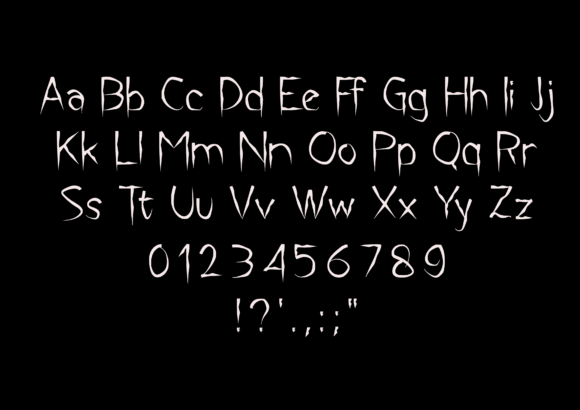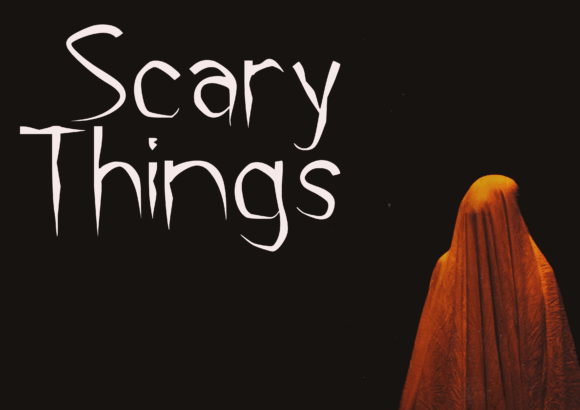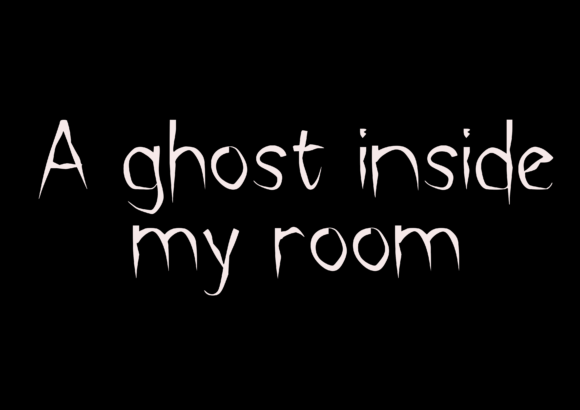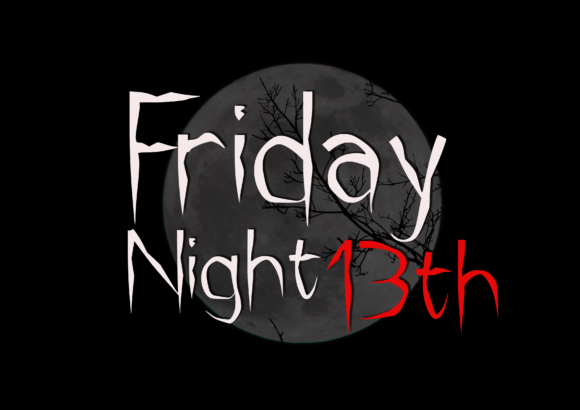
Unleash the Spook: Exploring the Alone in Halloween Font
As the spookiest time of the year approaches, designers and crafters are on the lookout for the perfect typography to capture the essence of Halloween. If you’re searching for a font that embodies the horror, spookiness, and evil vibes of the season, look no further than the Alone in Halloween Font. In this article, we’ll dive into the details of this chilling font and explore its inspiration, design, and uses.
The Inspiration Behind Alone in Halloween Font
The Alone in Halloween Font is a masterful blend of horror, spookiness, and evil style, drawing inspiration from the darkest corners of horror movies, comics, and black metal music. The font’s creator aimed to craft a typography that would evoke the same eerie feelings as a creepy abandoned asylum or a haunted forest on Halloween night. By combining these influences, the Alone in Halloween Font was born – a font that’s sure to send shivers down the spines of your audience.
Design and Visual Appearance
The Alone in Halloween Font boasts a unique, distressed design that exudes a sense of horror and foreboding. Its rugged, uneven lines and jagged edges create a sense of unease, perfect for capturing the essence of Halloween. The font’s black metal-inspired aesthetic adds an extra layer of edginess, making it ideal for designers and crafters looking to create bold, eye-catching projects. Whether you’re designing a spooky poster, a haunting book cover, or a chilling Halloween card, the Alone in Halloween Font is sure to make a lasting impression.
Uses for Alone in Halloween Font
The versatility of the Alone in Halloween Font makes it an excellent choice for a wide range of projects. Here are some ideas to get you started:
• Halloween Day Celebrations: Use the Alone in Halloween Font to create spooky decorations, invitations, or party flyers that will set the tone for a howling good time.
• Branding and Design Projects: Add a touch of horror and edginess to your brand’s identity or design projects, such as logos, brochures, or business cards.
• Music and Posters: Create eye-catching posters or album covers for your favorite bands or music artists, especially those in the horror or metal genres.
• Book Covers: Use the Alone in Halloween Font to create haunting book covers for horror, thriller, or mystery novels that will grab readers’ attention.
• Crafting and DIY Projects: Add a personal touch to your Halloween-themed crafts, such as pumpkin carvings, Halloween cards, or spooky centerpieces.
Tips for Using Alone in Halloween Font
To get the most out of the Alone in Halloween Font, here are some tips to keep in mind:
• Experiment with Colors: While the font’s black and dark gray tones are perfect for creating a spooky atmosphere, don’t be afraid to experiment with other colors to add a pop of brightness or create a unique visual effect.
• Mix and Match: Combine the Alone in Halloween Font with other fonts or design elements to create a unique and eye-catching visual style.
• Pay Attention to Kerning: As with any font, make sure to adjust the kerning to ensure that your text is evenly spaced and visually appealing.
The Alone in Halloween Font is a one-of-a-kind typography that’s sure to add a touch of horror, spookiness, and evil vibes to your design projects. Whether you’re a designer, crafter, or simply a Halloween enthusiast, this font is a must-have for creating eye-catching and memorable projects. So why wait? Unleash the spook and get creative with the Alone in Halloween Font today!